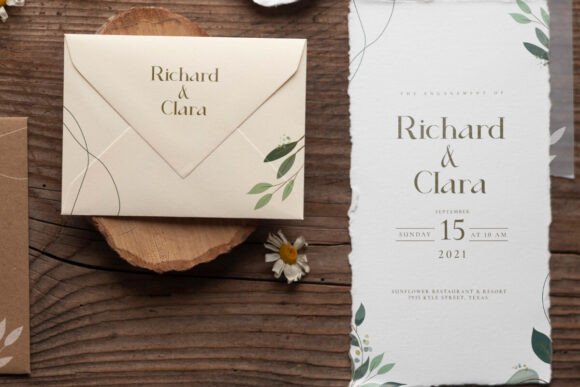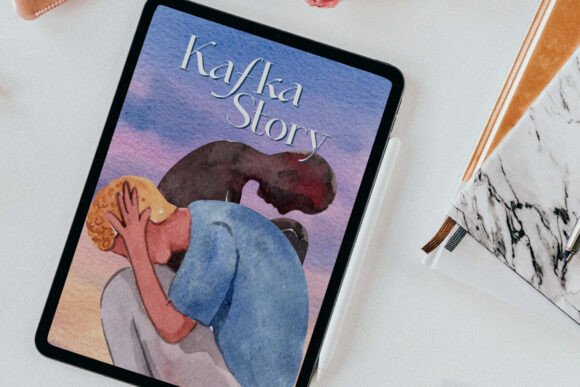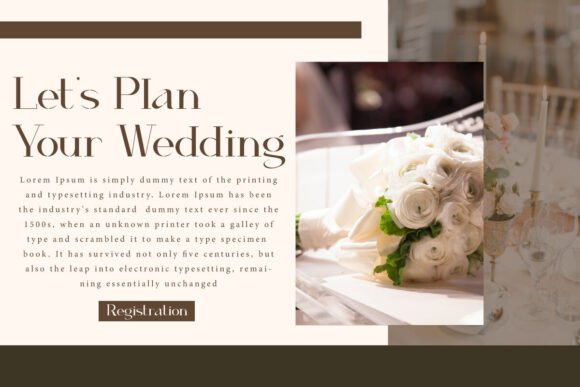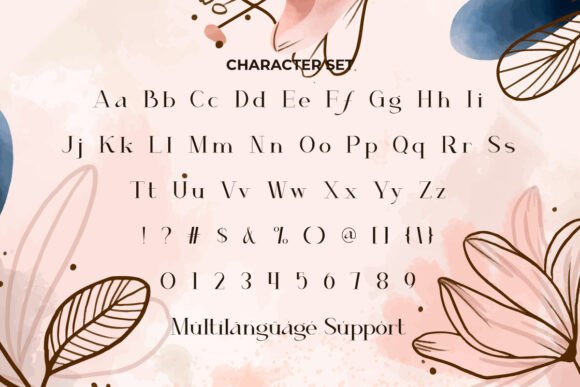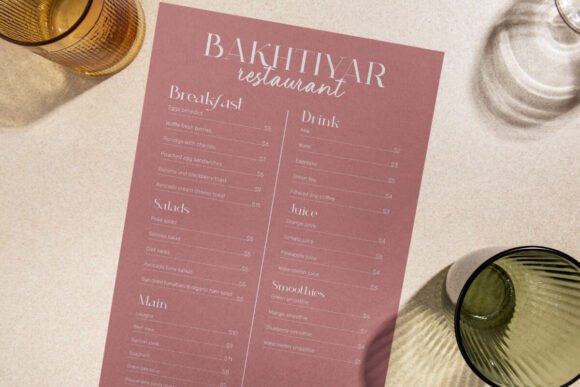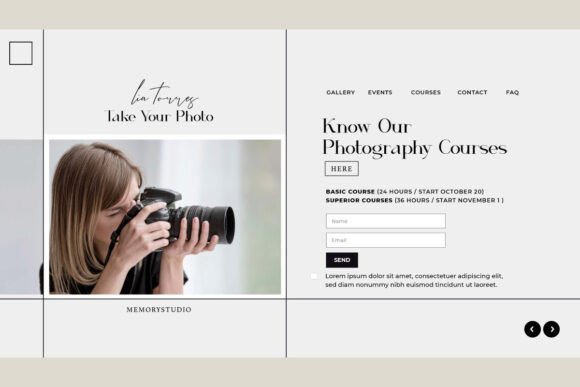
Discovering the Perfect Font for Your Creative Vision
Have you ever sat in front of your computer, staring blankly at a blank canvas, trying to conjure up the perfect design? You know the feeling – the one where you’re searching for that elusive font that will bring your entire concept together.
Enter the Base of Story Font, a stunning sans serif font that has been designed to elevate your designs to new heights. With its elegant lines and subtle details, this font is perfect for adding a touch of sophistication to your next project. Whether you’re creating an advertisement, a brand logo, or a custom design, the Base of Story Font is the perfect choice for designers who want to make a lasting impression.
With its versatility and timeless style, the Base of Story Font is a valuable asset for any designer looking to take their work to the next level. Its unique combination of clean lines and subtle details makes it the perfect addition to any design project, and its modern style ensures that it will remain relevant for years to come.
Base of Story Font Key Features
- Font Size: The font size is scalable, allowing users to adjust the font size to suit their needs. The font is designed to be legible at various sizes, from small captions to large headings.
- Resolution: The font is designed to be high-resolution, making it suitable for use in print and digital media. It can be used at resolutions of up to 300 dpi.
- Unique Characteristics: The Base of Story font features a unique blend of modern and traditional elements, making it a versatile choice for a wide range of applications. Its distinctive letterforms and subtle texture give it a distinctive look that sets it apart from other fonts.
- Language Support: The font supports a wide range of languages, including Latin, Greek, and Cyrillic scripts, making it a great choice for international applications.
- Font Width and Height: The font has a medium to wide width and a medium height, making it suitable for use in a variety of contexts, from body text to headings.
Designer Review: Base of Story Font
When I first laid eyes on the Base of Story Font, I was immediately drawn to its clean and modern aesthetic. The ✨ simple yet elegant lines give it a timeless feel that’s sure to appeal to designers looking for a versatile font. I’ve used it for various projects, and I must say, it’s a great addition to any design arsenal.
- ✨ The font’s flexibility makes it suitable for both digital and print materials
- ✨ The font’s high legibility ensures that your content is easily readable
- ✨ The font’s modern look is perfect for contemporary designs
However, I do have a few ⚠️ reservations about the font. For one, it may not be the best choice for designs that require a bold or dramatic feel. Additionally, some users may find the font a bit too minimalist, which may not suit their design preferences.
Overall, I think the Base of Story Font is a solid choice for designers looking for a clean and modern font. While it may not be the most exciting font out there, it’s a reliable and versatile option that’s sure to deliver.
Practical Application Guide for Base of Story Font
For best results, use the Base of Story Font in combination with bold or italic text to create visual hierarchy and emphasis. You can also experiment with different font sizes and colors to create a unique look.
The Base of Story Font is ideal for use in creative projects, such as book covers, magazine layouts, and website design. It can also be used in academic papers, presentations, and other documents where a unique and professional font is desired.
What is the recommended font size for using the Base of Story font?
The recommended font size for using the Base of Story font is between 12pt and 14pt for body text. This font size range provides optimal legibility and readability, making it suitable for a wide range of applications, including digital and print media.